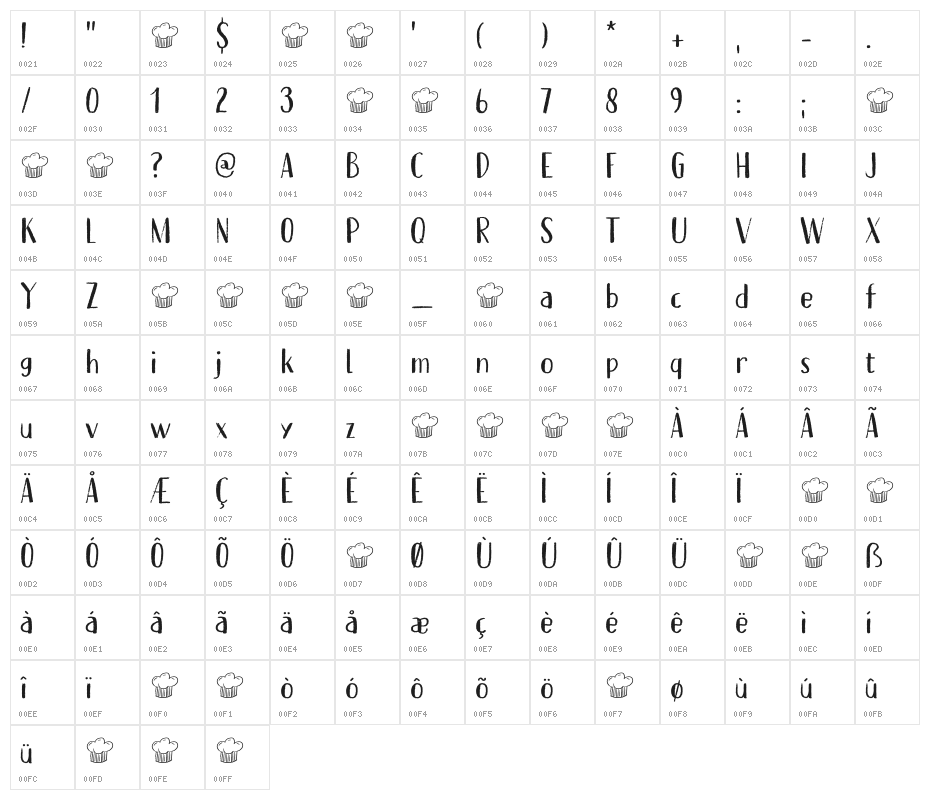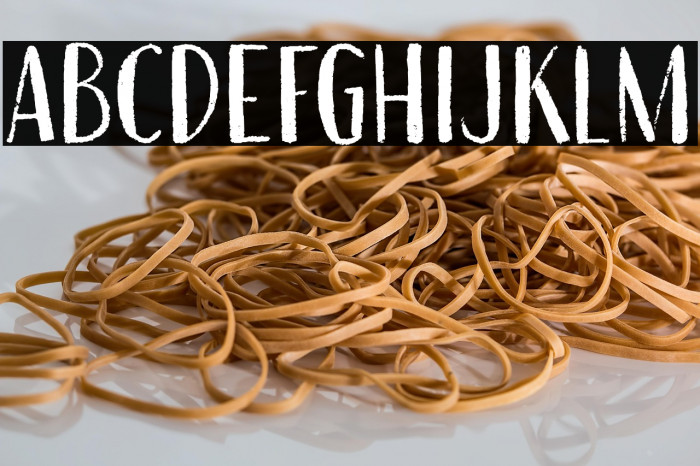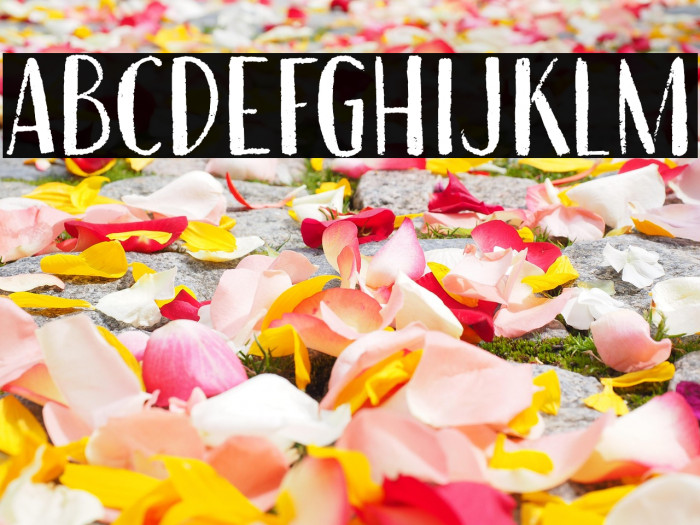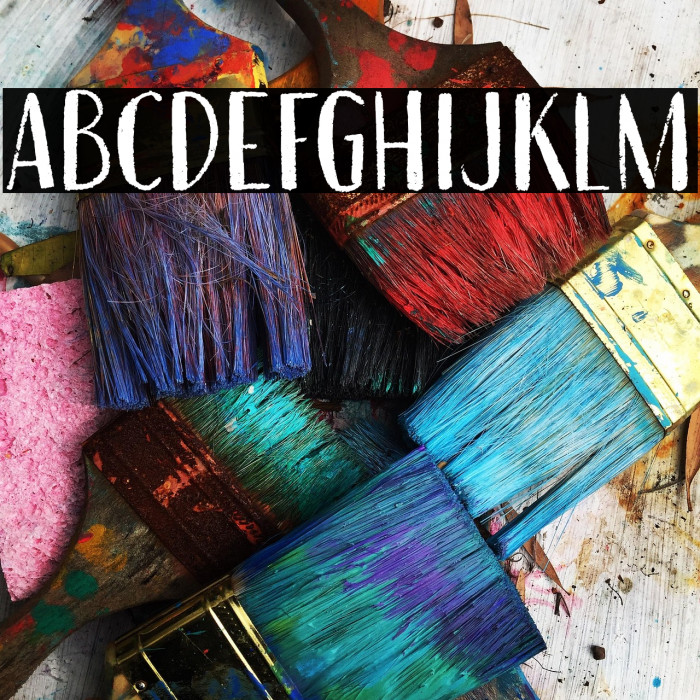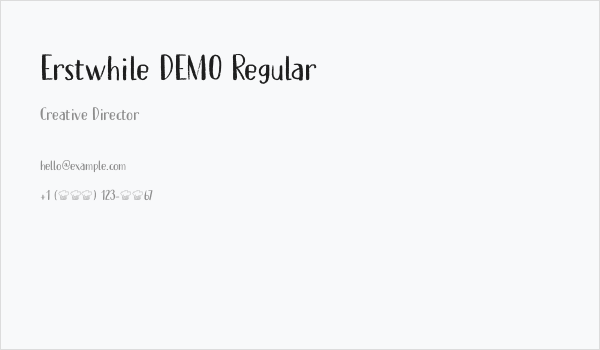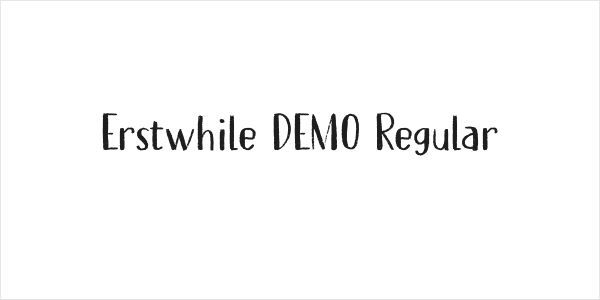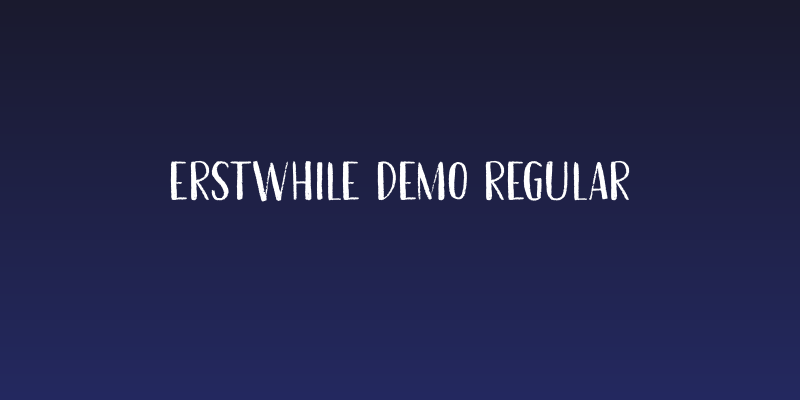
Erstwhile DEMO Regular Font
Erstwhile DEMO Regular Description
This font features a hand-drawn, rustic style with a playful and informal appearance. The letters have a slightly uneven stroke, giving them a natural and organic feel. The uppercase and lowercase characters maintain a consistent style, with rounded edges and a slightly rough texture that adds to the handcrafted aesthetic. The numbers and special characters follow the same design principles, ensuring a cohesive look across all elements. This font is perfect for projects that require a touch of whimsy and creativity, such as children's books, greeting cards, or artisanal product packaging.
| Use Case | Logos, Headlines, Creative projects |
| Proposed Projects | Ideal for children's books, greeting cards, artisanal product packaging, and creative branding. |